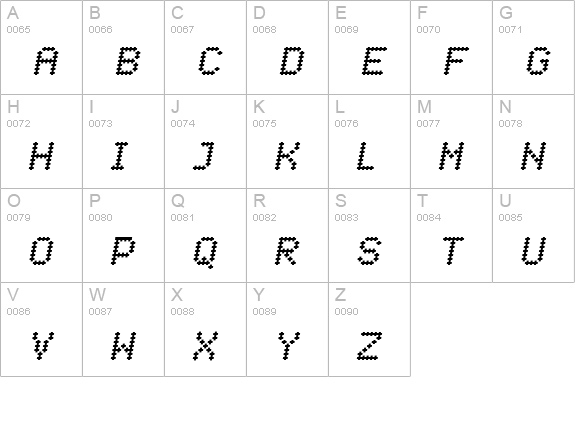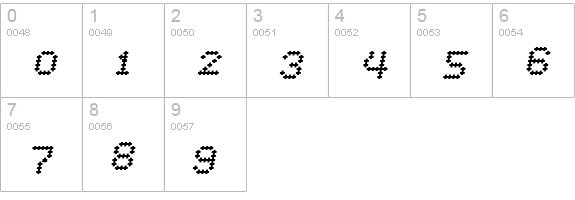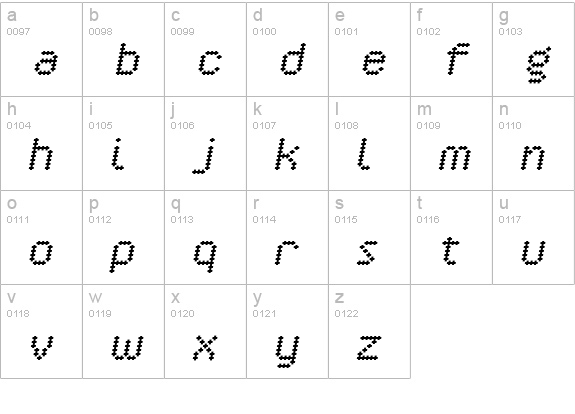
Crossover BoldOblique font is a stylish and modern typeface that combines boldness with a touch of elegance. Its unique bold oblique design makes it stand out from other fonts, making it perfect for adding a touch of sophistication to any project. This versatile font is ideal for a wide range of design applications, from headlines and logos to posters and invitations. Best of all, Crossover BoldOblique font is available for free download at FontsMarket.com. Whether you're a professional designer looking to enhance your projects or a hobbyist seeking a unique font for personal use, this font is sure to impress. Download Crossover BoldOblique today and elevate your designs with its bold and distinctive style.